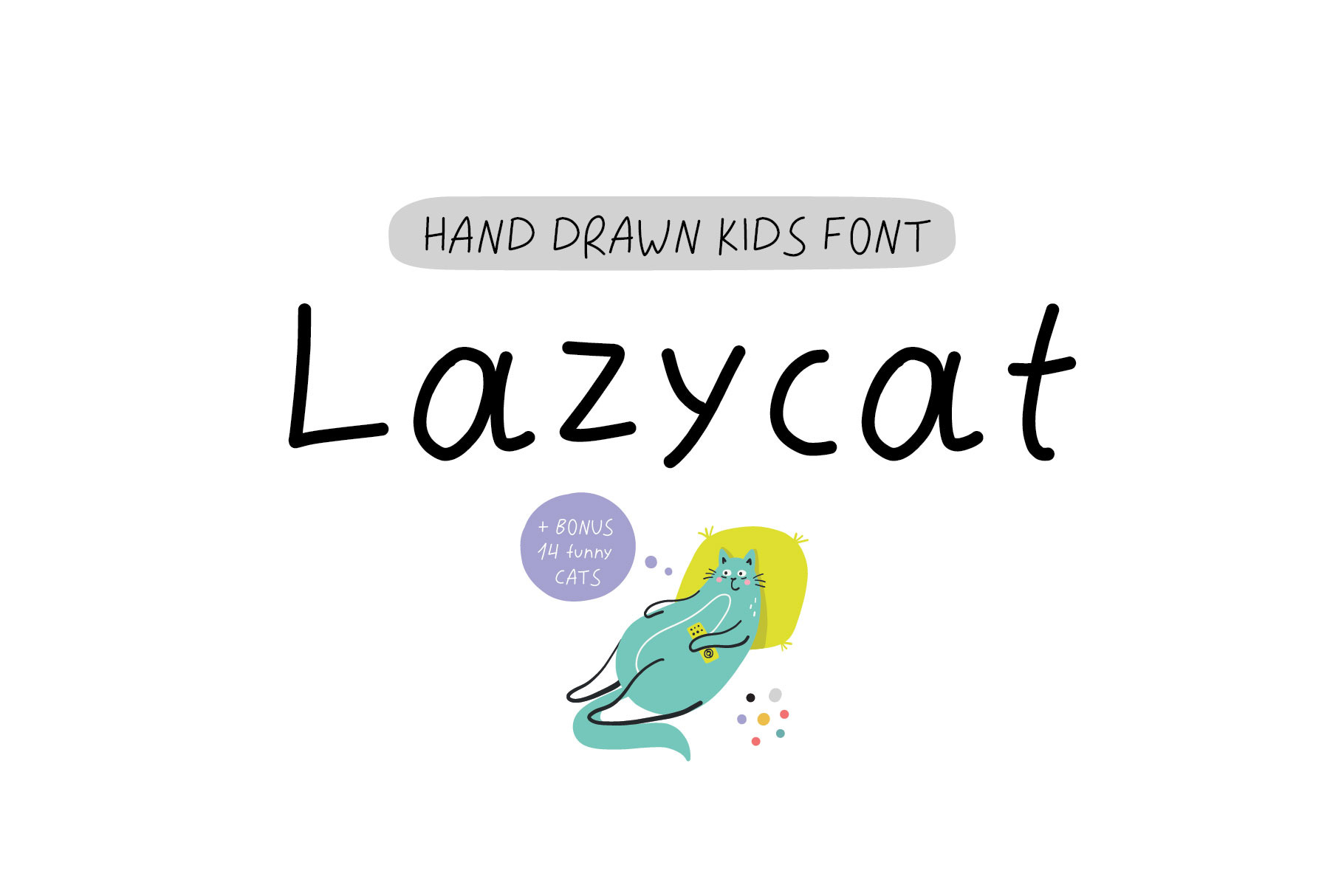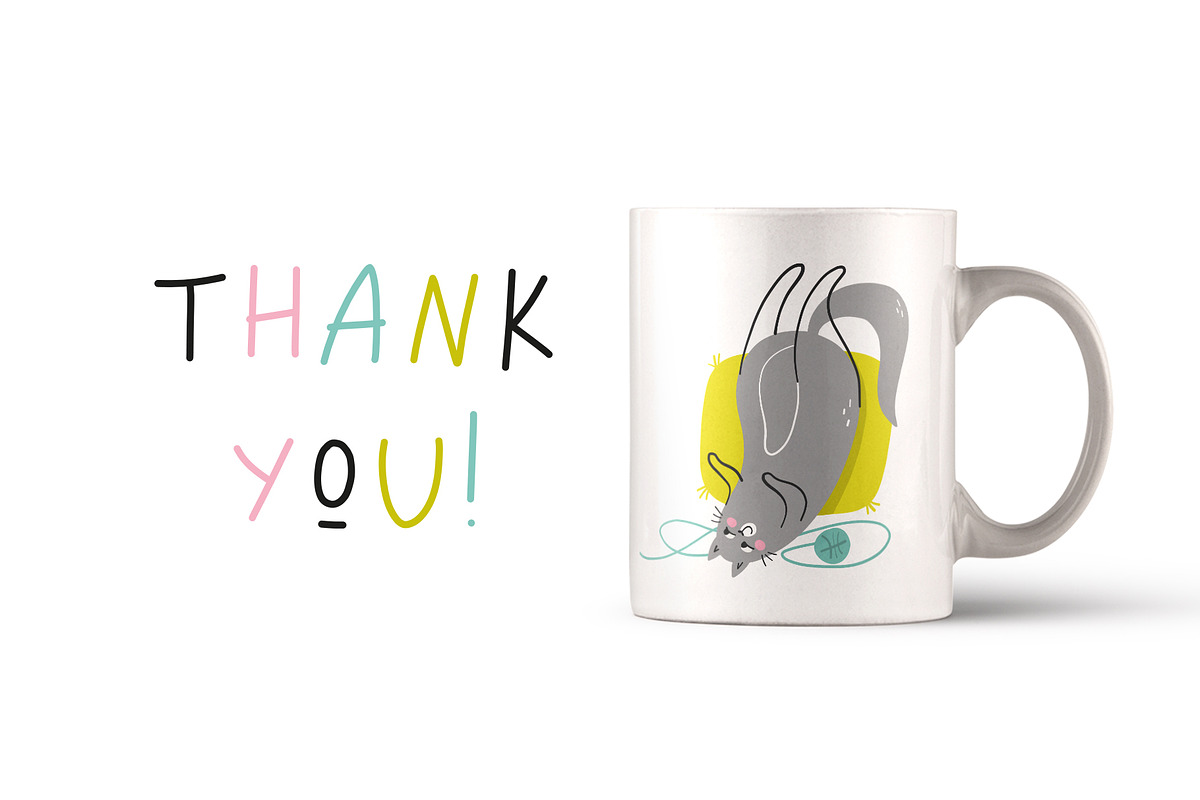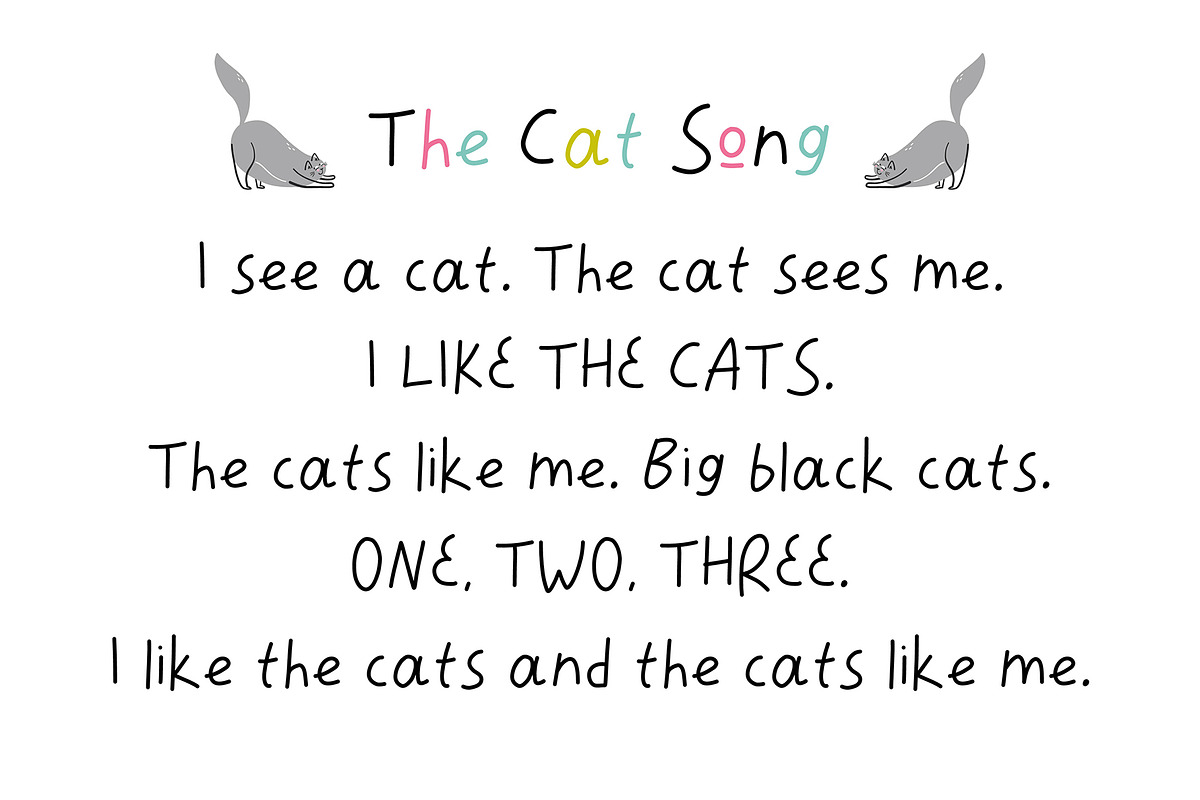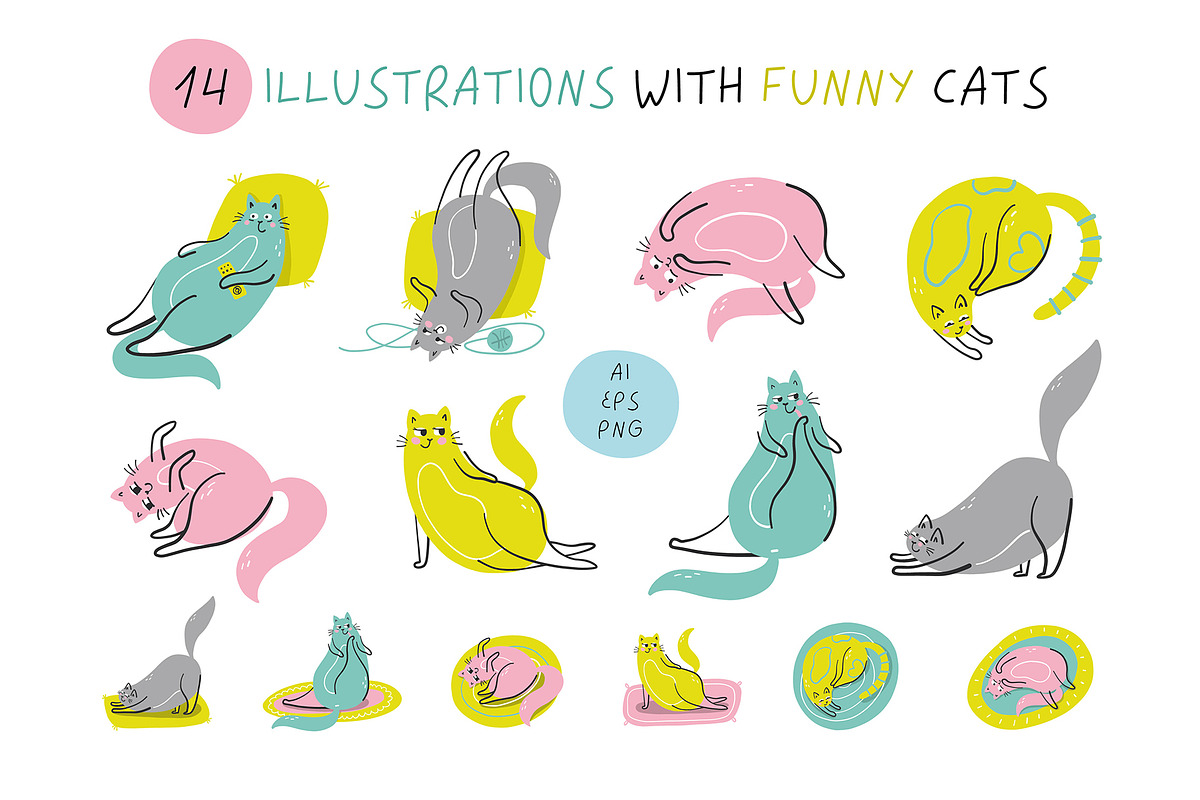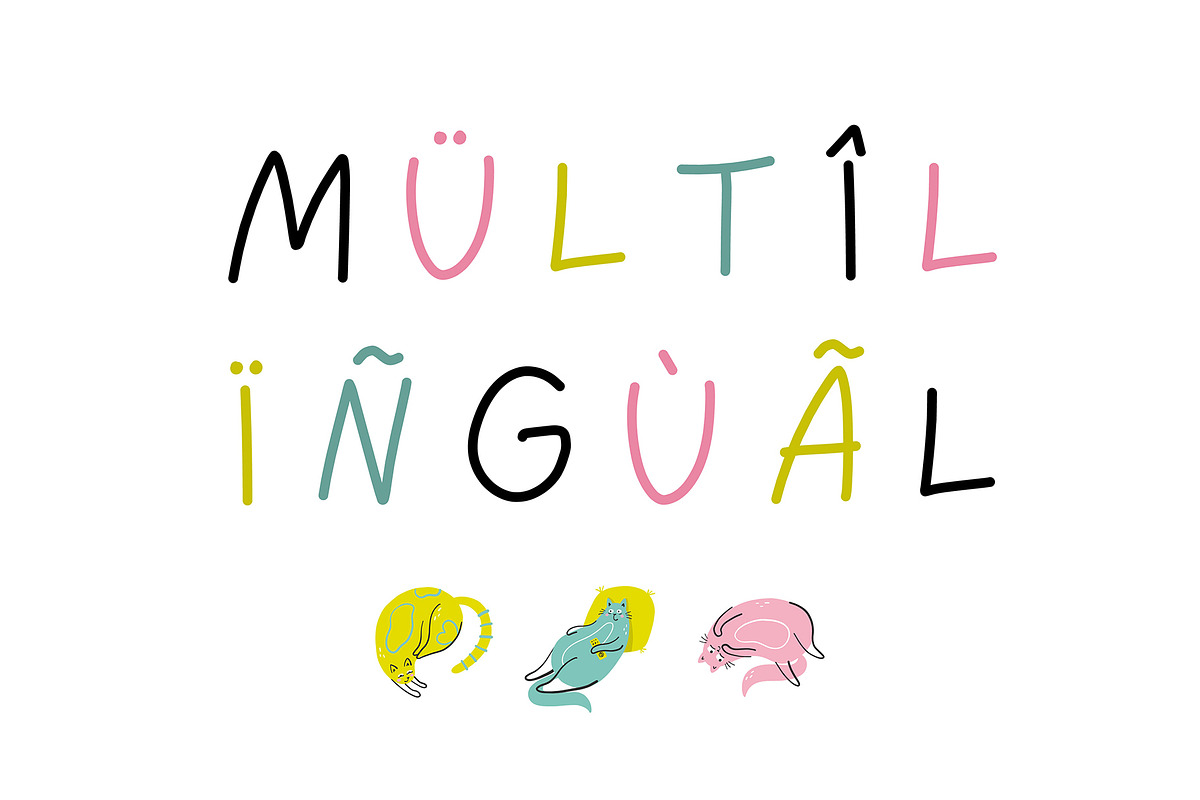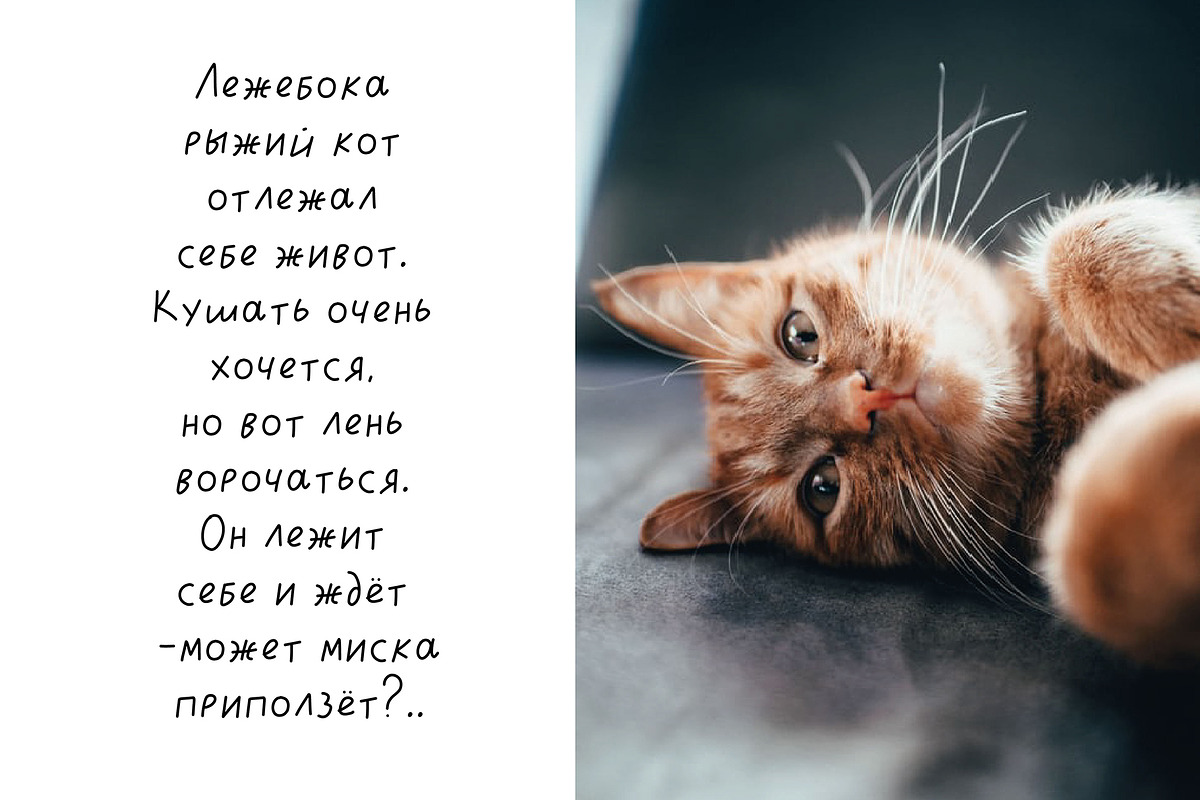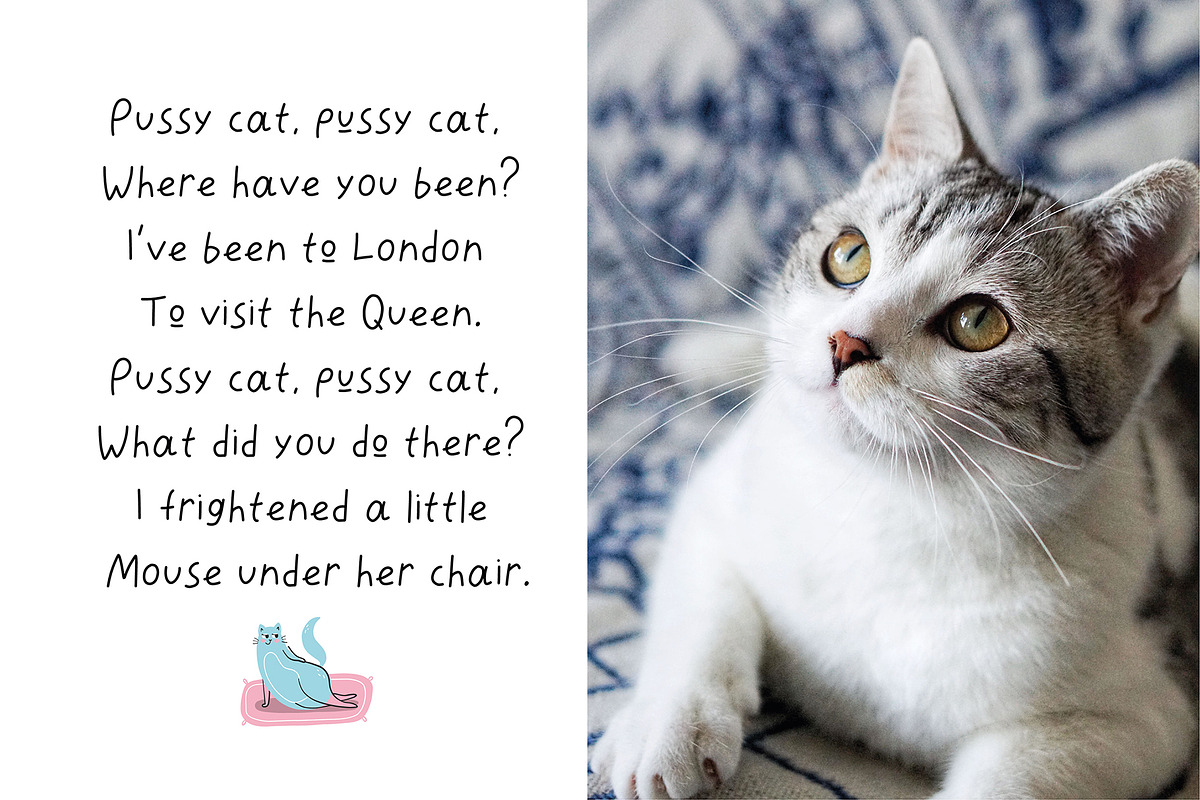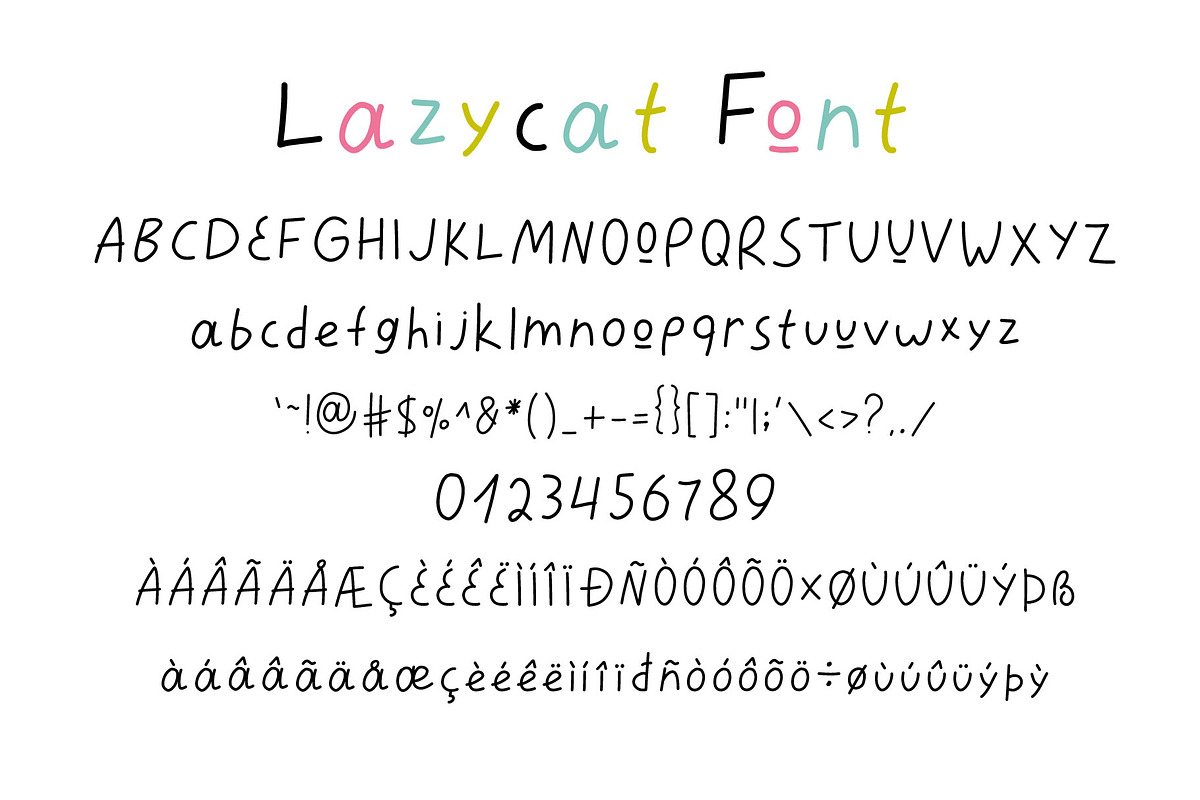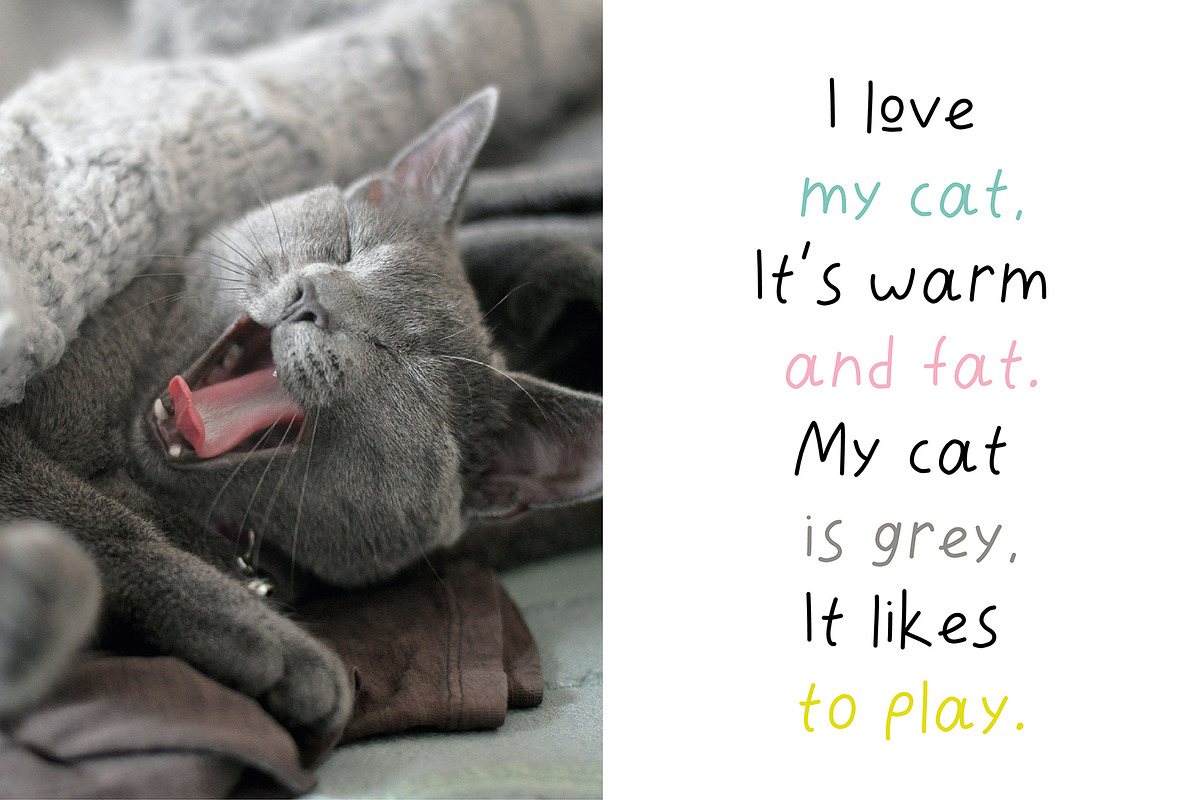
Lazycat Kids font
Lazycat Font is a cute handwritten font with which you can create amazing projects. Use it to print posters, prints, postcards, stickers, badges, design books and notebooks. I added funny illustrations with images of cats to the product. Just add them to your design! Create!